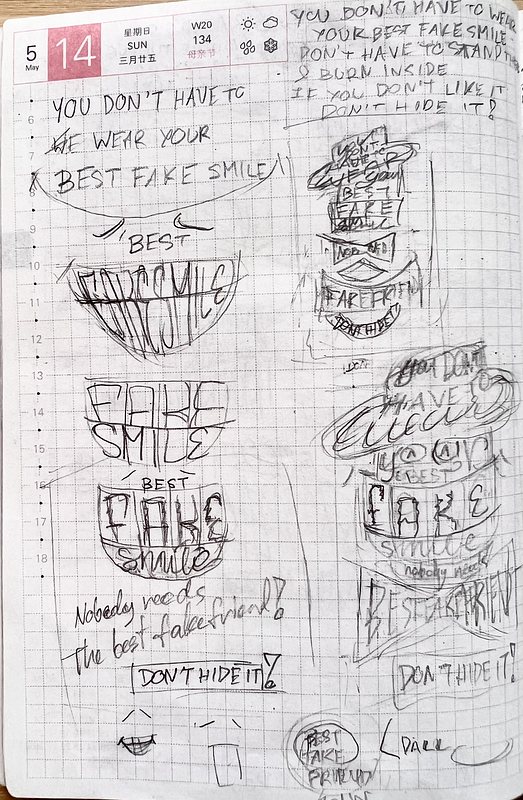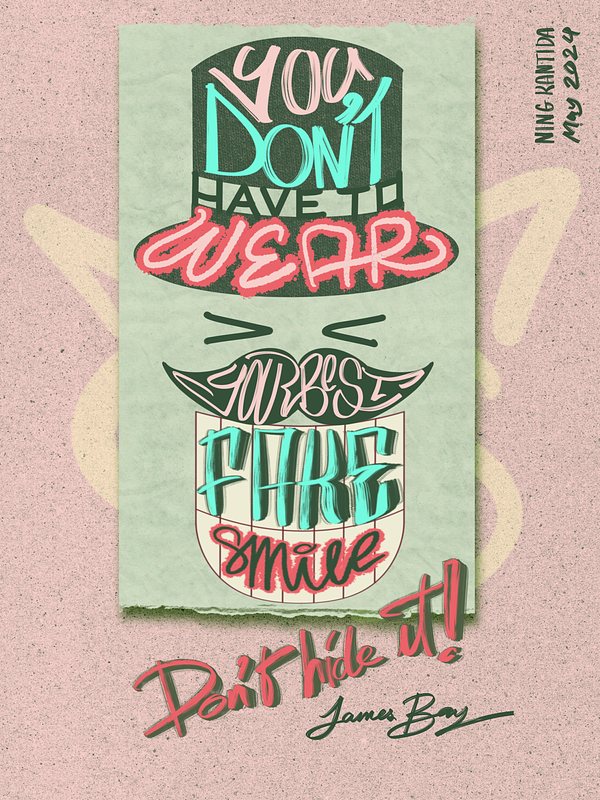
The Lyrics Lettering 00014-Best Fake Smile by James Bay
My design inspired by Best Fake Smile by James Bay
I've always been a fan of James Bay's music. His songs hit home for me. There's just such a variety in his music and one that stood out to me for my lettering design is the song "Best Fake Smile". The message in that song is great,
you can pretend everything's cool but deep down it's eating you away. It's all about being true to yourself and dropping the act.
The design process for this piece was enjoyable. I aimed to make the smile the focal point, creating a whimsical and fun yet meaningful message of stopping faking it. I intended to convey the idea of dropping the facade and embracing authenticity. Initially, I also considered adding the line: "Nobody needs a best fake friend", but decided to drop it.